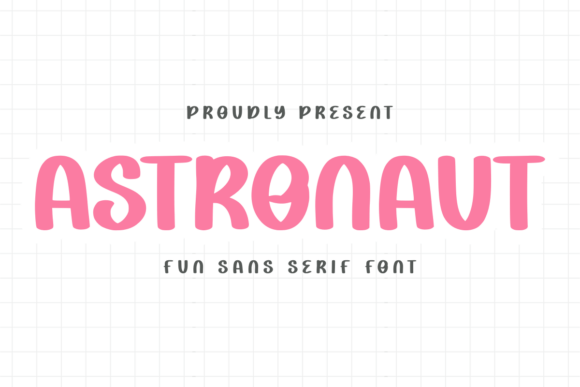
Astronaut Font: The Perfect Addition to Your Holiday Designs
Are you looking for a font that can add a touch of holiday cheer to your designs? Look no further than the Astronaut font. This festive and fun sans serif font is perfect for creating cards, invitations, and other holiday-themed graphics. In this article, we’ll take a closer look at the Astronaut font and how you can use it to take your holiday designs to the next level.
What is Astronaut Font?
Astronaut font is a sans serif font that is designed to be fun and playful. It features bold lines and playful curves that give it a unique and festive look. The font is perfect for use in holiday-themed designs, such as Christmas cards, invitations, and other graphics.
Key Features of Astronaut Font
- Playful curves: The Astronaut font features playful curves that give it a fun and festive look.
- Bold lines: The font’s bold lines make it perfect for use in designs where you want to make a statement.
- Sans serif: The font is a sans serif font, which means it doesn’t have any decorative lines or flourishes.
- Festive: The font is designed to be festive and fun, making it perfect for use in holiday-themed designs.
How to Use Astronaut Font in Your Designs
The Astronaut font is a versatile font that can be used in a variety of designs. Here are a few ideas for how you can use the font in your holiday designs:
- Christmas cards: Use the Astronaut font to create festive Christmas cards that are sure to impress your friends and family.
- Invitations: The font is perfect for use in holiday invitations, such as invitations to Christmas parties or Hanukkah celebrations.
- Holiday graphics: Use the Astronaut font to create festive holiday graphics, such as holiday-themed social media posts or blog graphics.
- Gift tags: The font is also perfect for use in gift tags, adding a touch of holiday cheer to your gifts.
Benefits of Using Astronaut Font
There are many benefits to using the Astronaut font in your holiday designs. Here are a few:
- Unique look: The Astronaut font has a unique look that will set your designs apart from others.
- Festive feel: The font is designed to be festive and fun, making it perfect for use in holiday-themed designs.
- Easy to read: The font is easy to read, even at small sizes, making it perfect for use in a variety of designs.
- Versatile: The Astronaut font is a versatile font that can be used in a variety of designs, from Christmas cards to holiday graphics.
Tips for Using Astronaut Font
Here are a few tips for using the Astronaut font in your holiday designs:
- Use it sparingly: While the Astronaut font is festive and fun, it can be overwhelming if used too much. Use it sparingly to add a touch of holiday cheer to your designs.
- Pair it with other fonts: The Astronaut font pairs well with other fonts, such as serif fonts or script fonts. Experiment with different font combinations to find the one that works best for your design.
- Experiment with colors: The Astronaut font looks great in a variety of colors, from bright and bold to more muted and subtle. Experiment with different colors to find the one that works best for your design.
The Astronaut font is a festive and fun sans serif font that is perfect for adding a touch of holiday cheer to your designs. With its playful curves and bold lines, this font is ideal for creating cards, invitations, and other holiday-themed graphics. Whether you’re a designer or just looking for a fun font to use in your holiday designs, the Astronaut font is a great choice.
- What is the Astronaut font? The Astronaut font is a festive and fun sans serif font designed for use in holiday-themed designs.